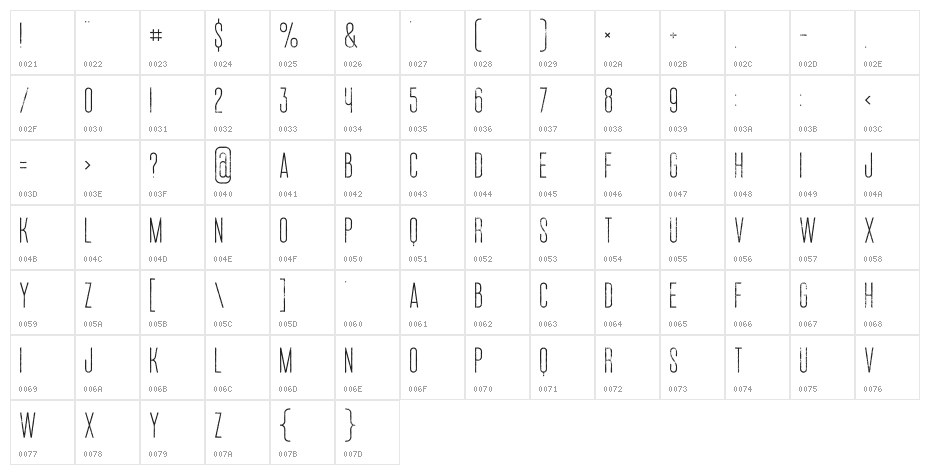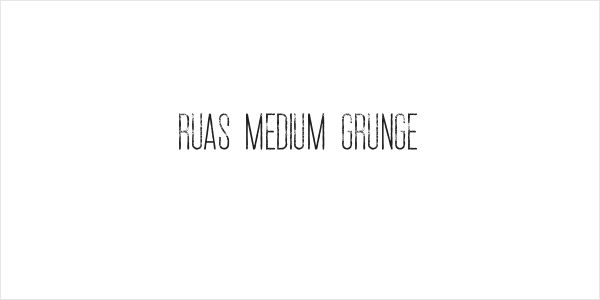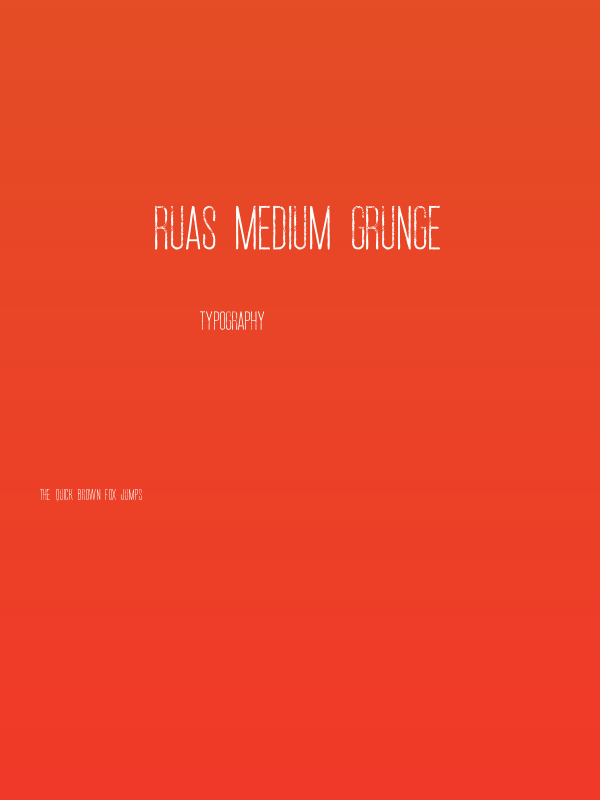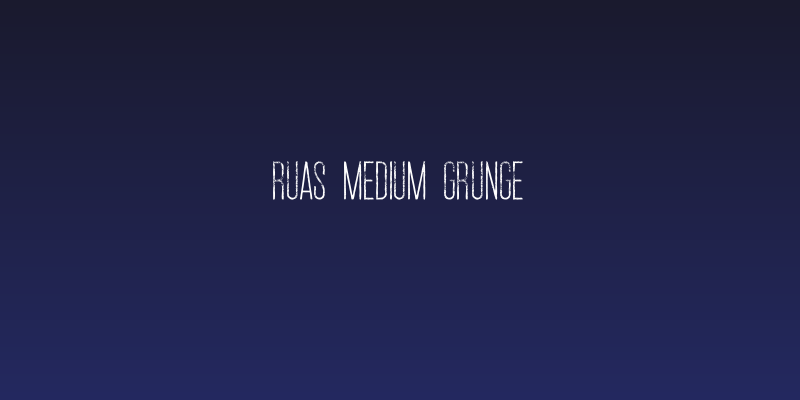
Ruas Medium Grunge Font
Ruas Medium Grunge Description
This font features a distressed, grunge aesthetic with a rough texture that gives it a worn, vintage feel. The characters are tall and narrow, with a consistent height across both uppercase and lowercase letters. The edges are uneven, contributing to its rugged appearance. This style is reminiscent of old typewriter fonts but with a modern twist, making it ideal for projects that require a touch of edginess and character. The numerals and special characters maintain the same distressed look, ensuring uniformity throughout the typeface.
| Proposed Projects | Ideal for album covers, posters, branding for edgy or alternative products, and any design needing a vintage or rugged feel. |